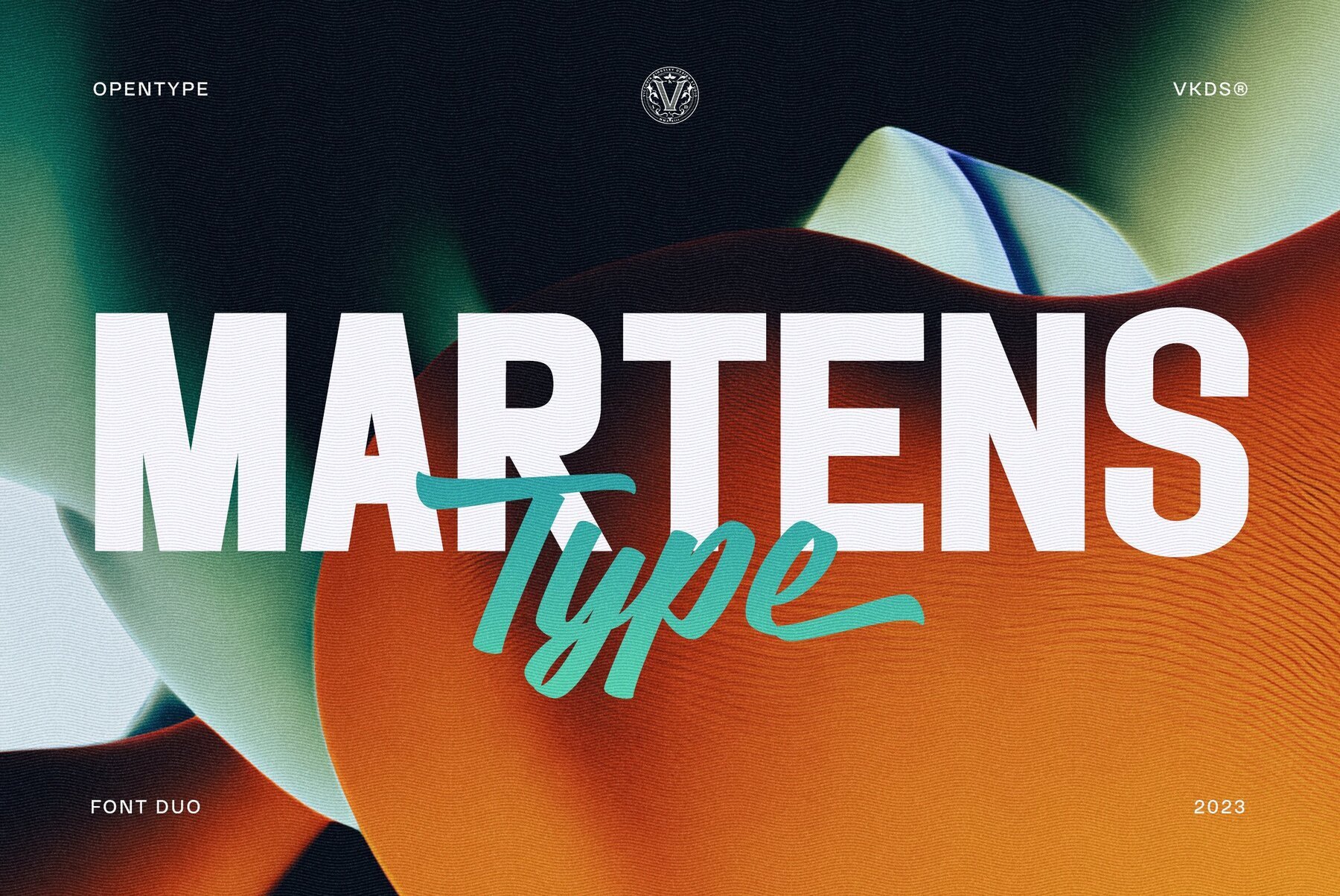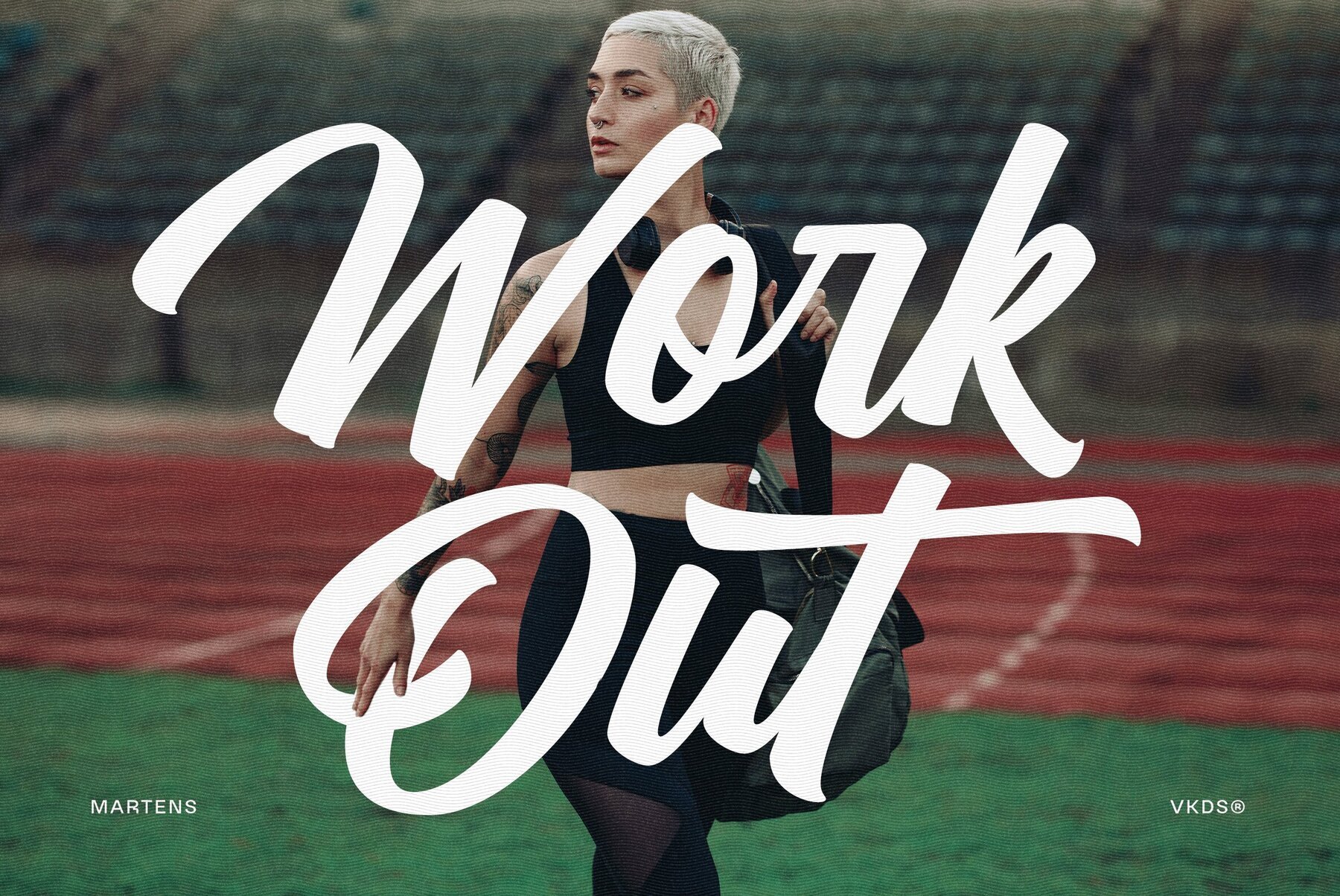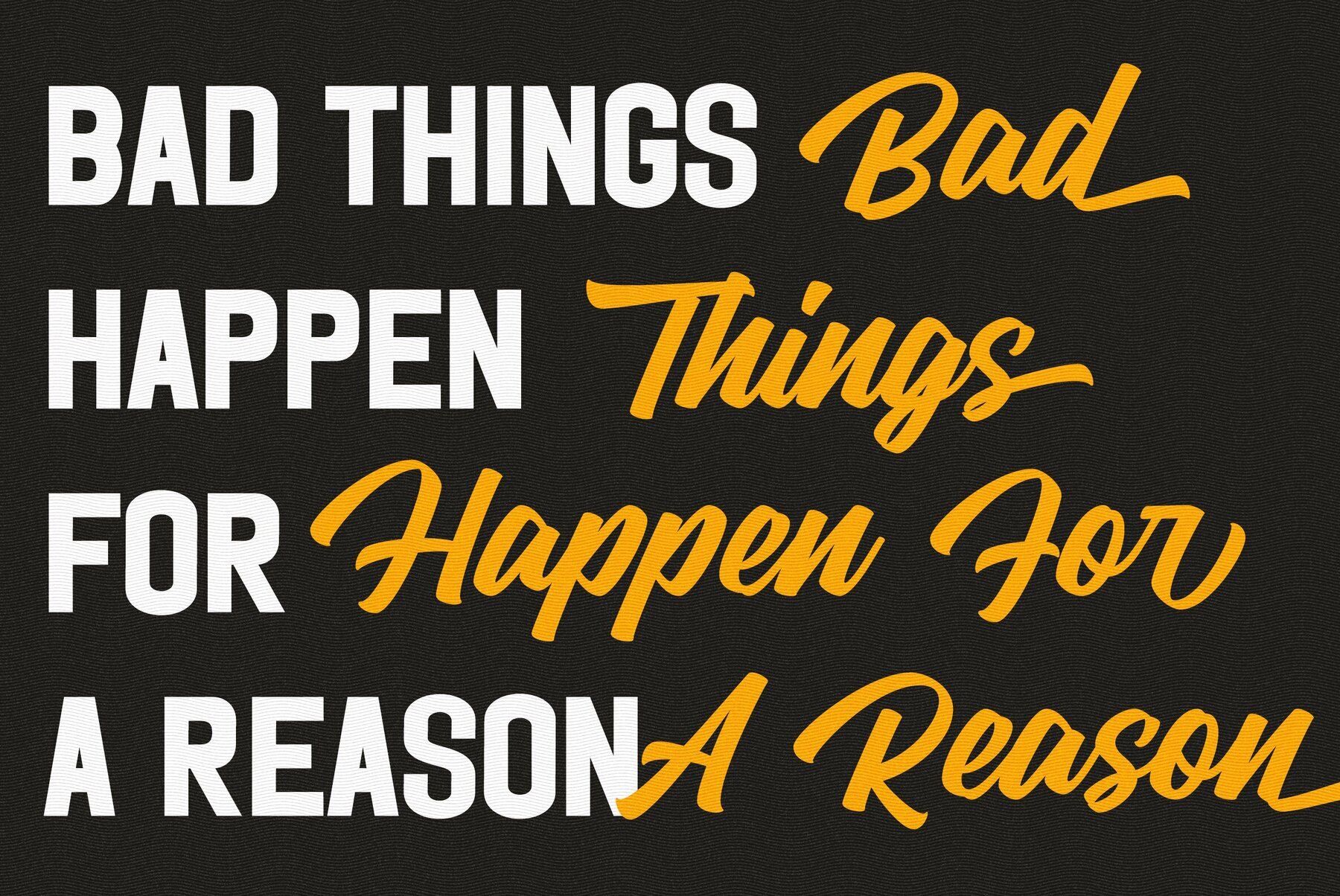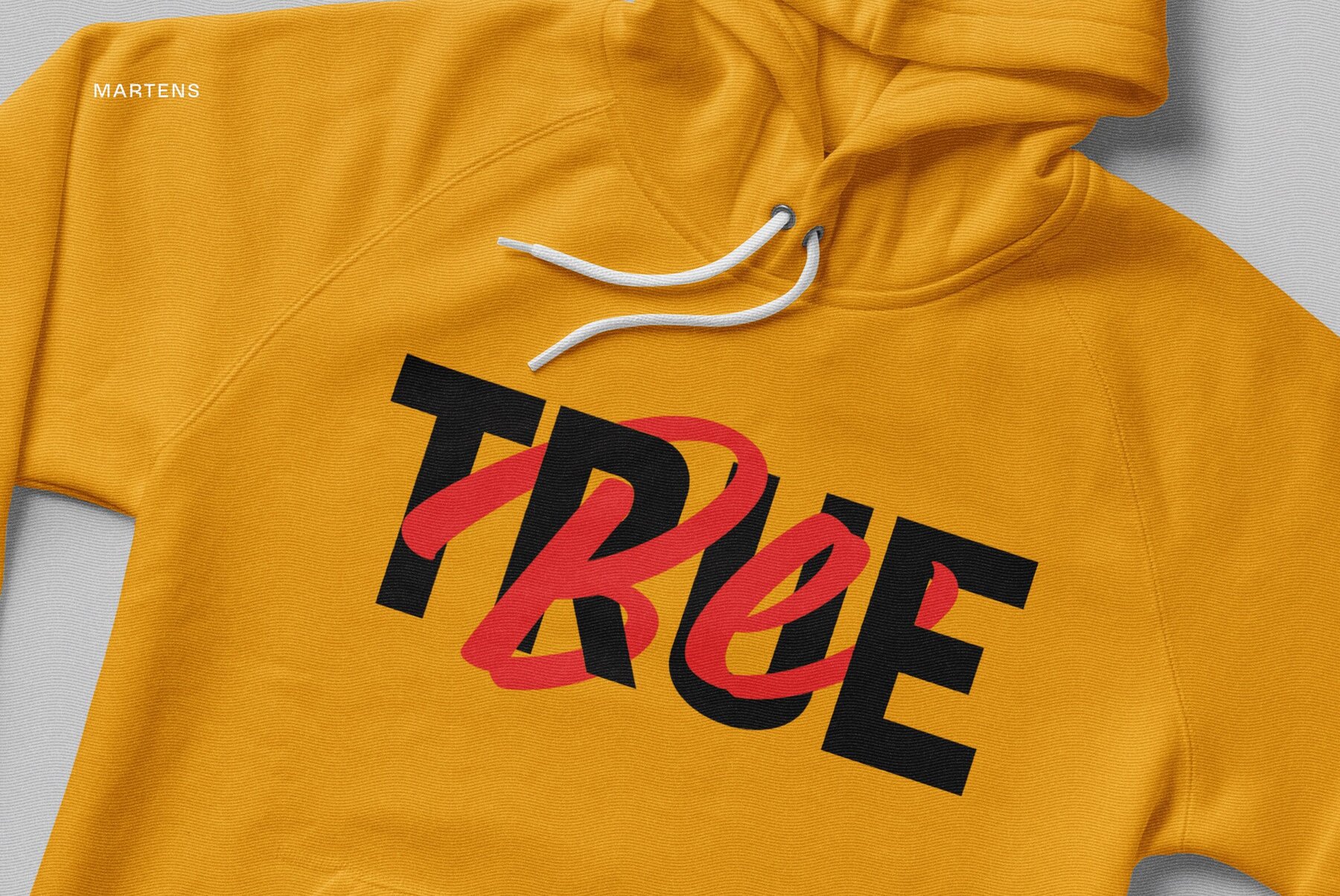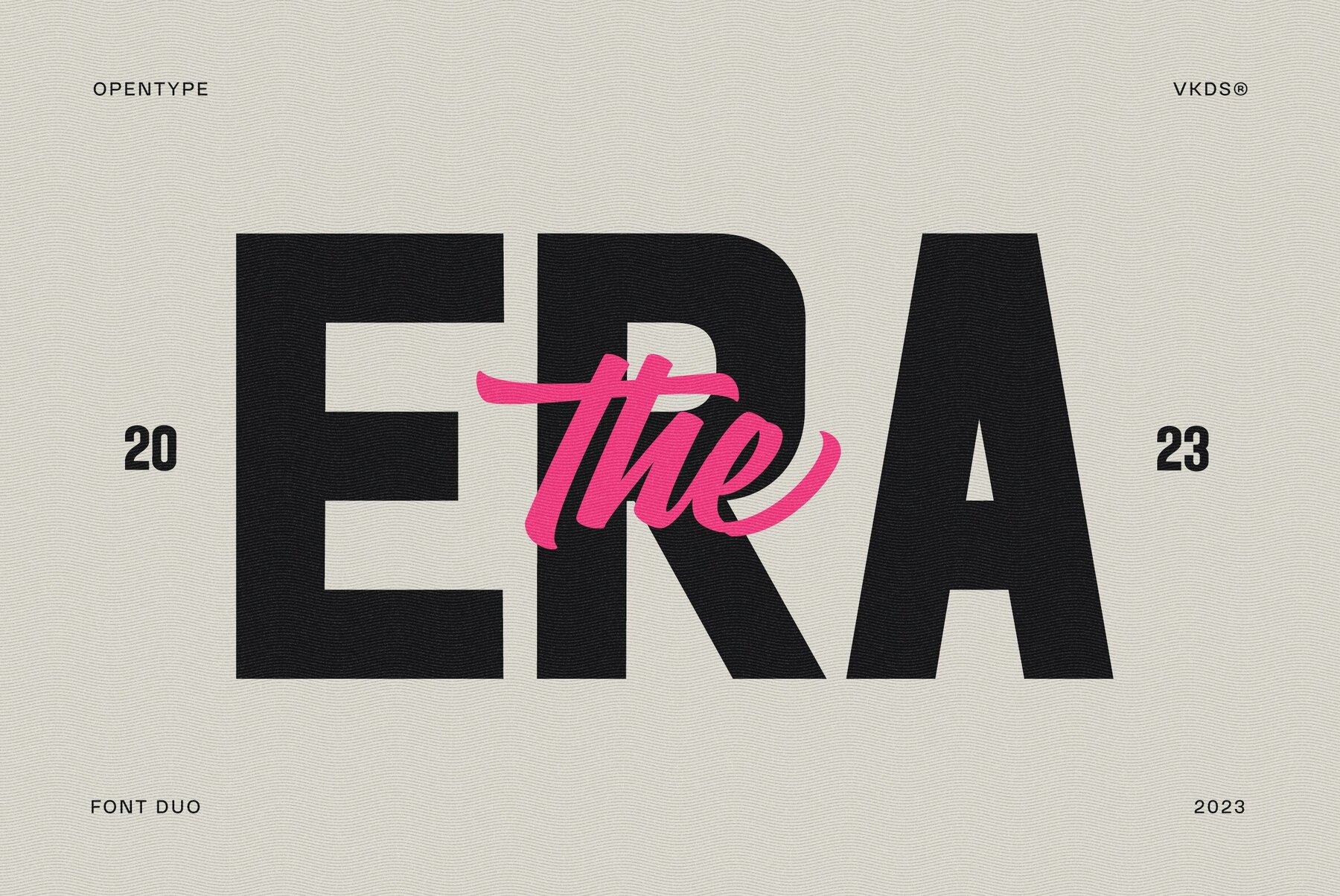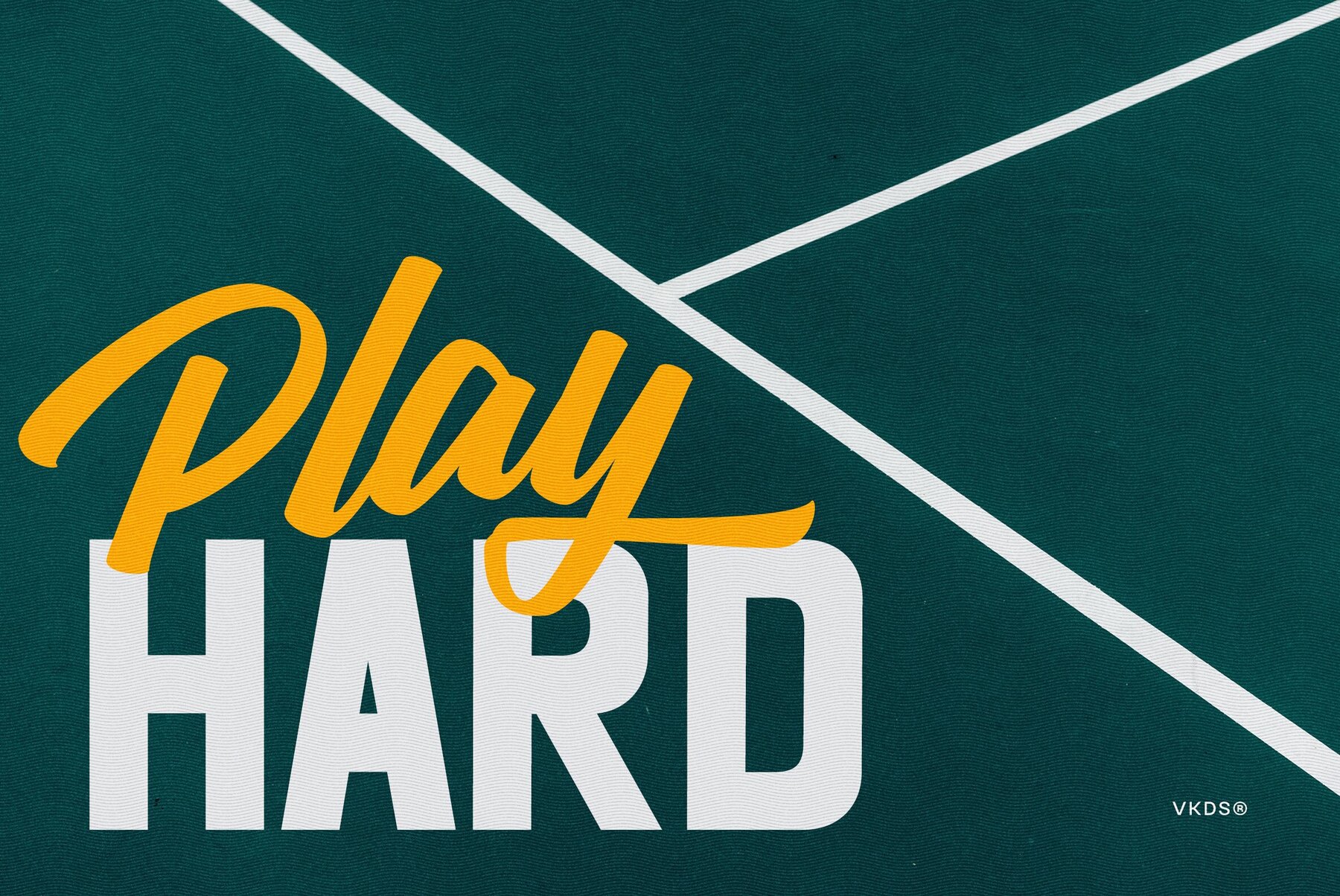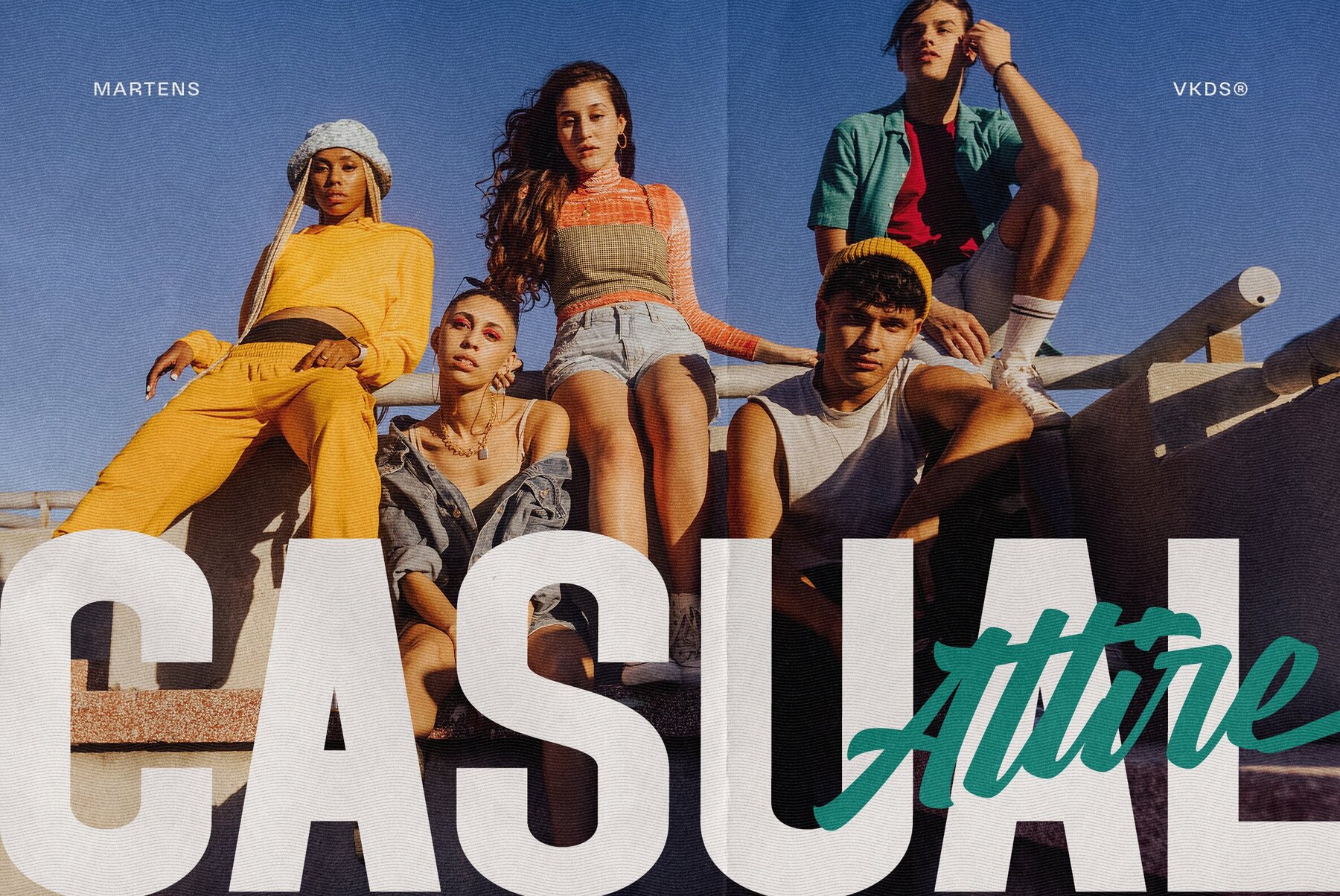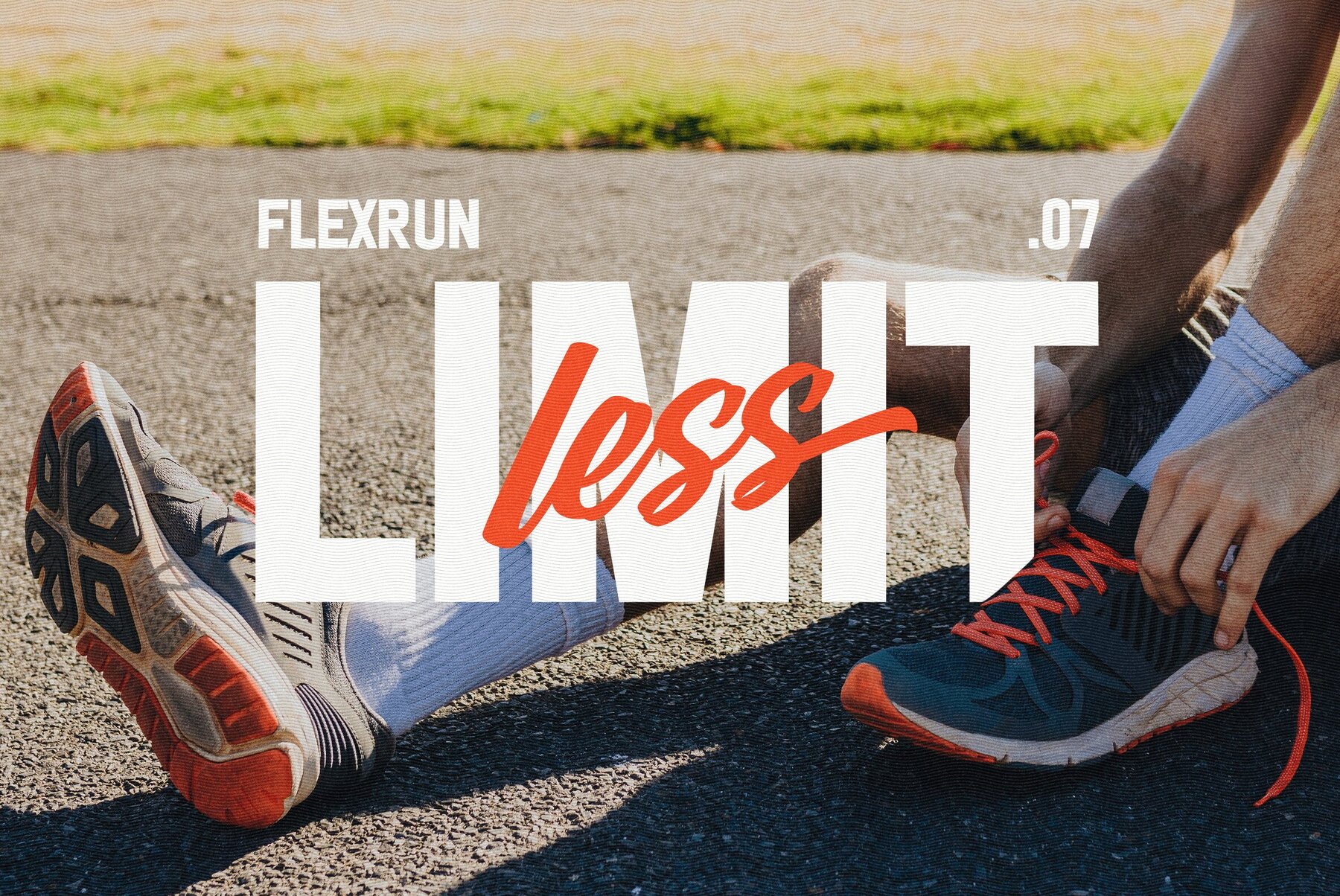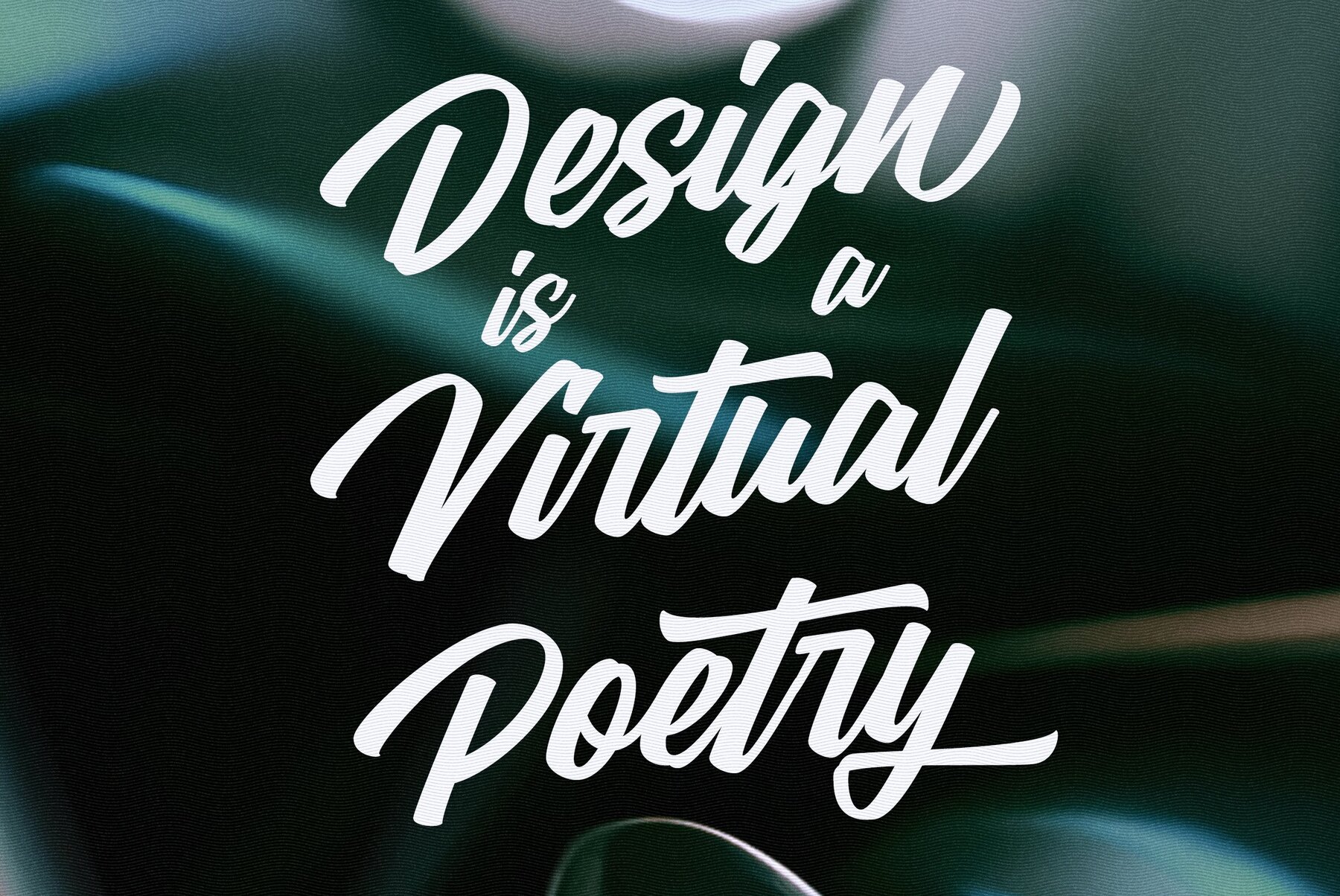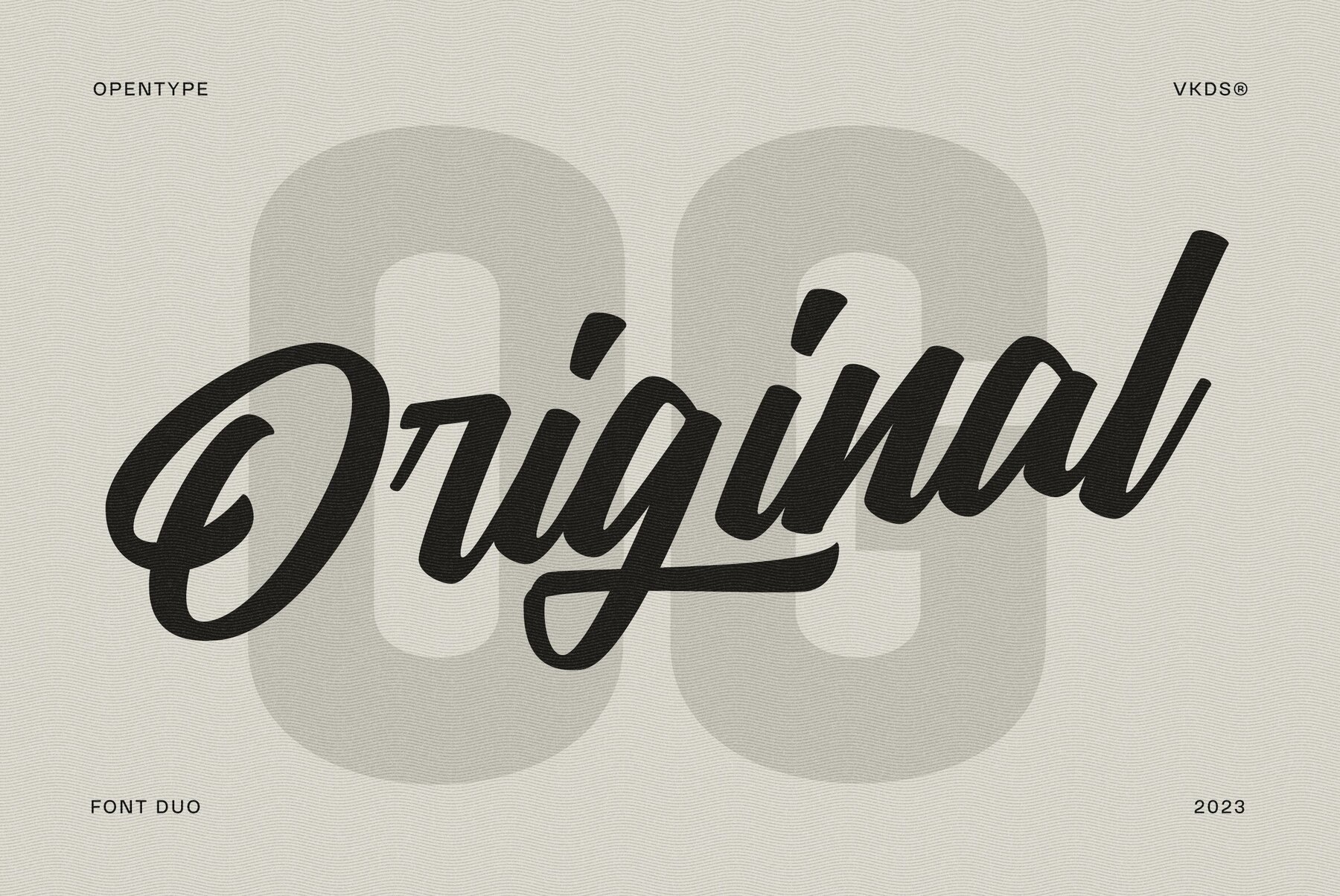
Martens Font
Martens, a dynamic font duo meticulously crafted by Victoria Kingsley Design Studio. This unique font duo consists of two font styles: a sleek sans-serif and a stylish script font. With over 400 glyphs in each style, Martens offers endless possibilities for your design projects. Originally designed for sports branding and sports logos, Martens also lends itself well to social media marketing, Instagram stories, and other creative endeavors. Its versatility and modern appeal make it a perfect choice for various applications. Featuring multiple OpenType features such as alternates and ligatures, Martens allows you to customize and personalize your designs with ease. As an exclusive font available only at YouWorkForThem, you can confidently download Martens today and elevate your designs to new heights. Additional product used additional products used for slideshow images: